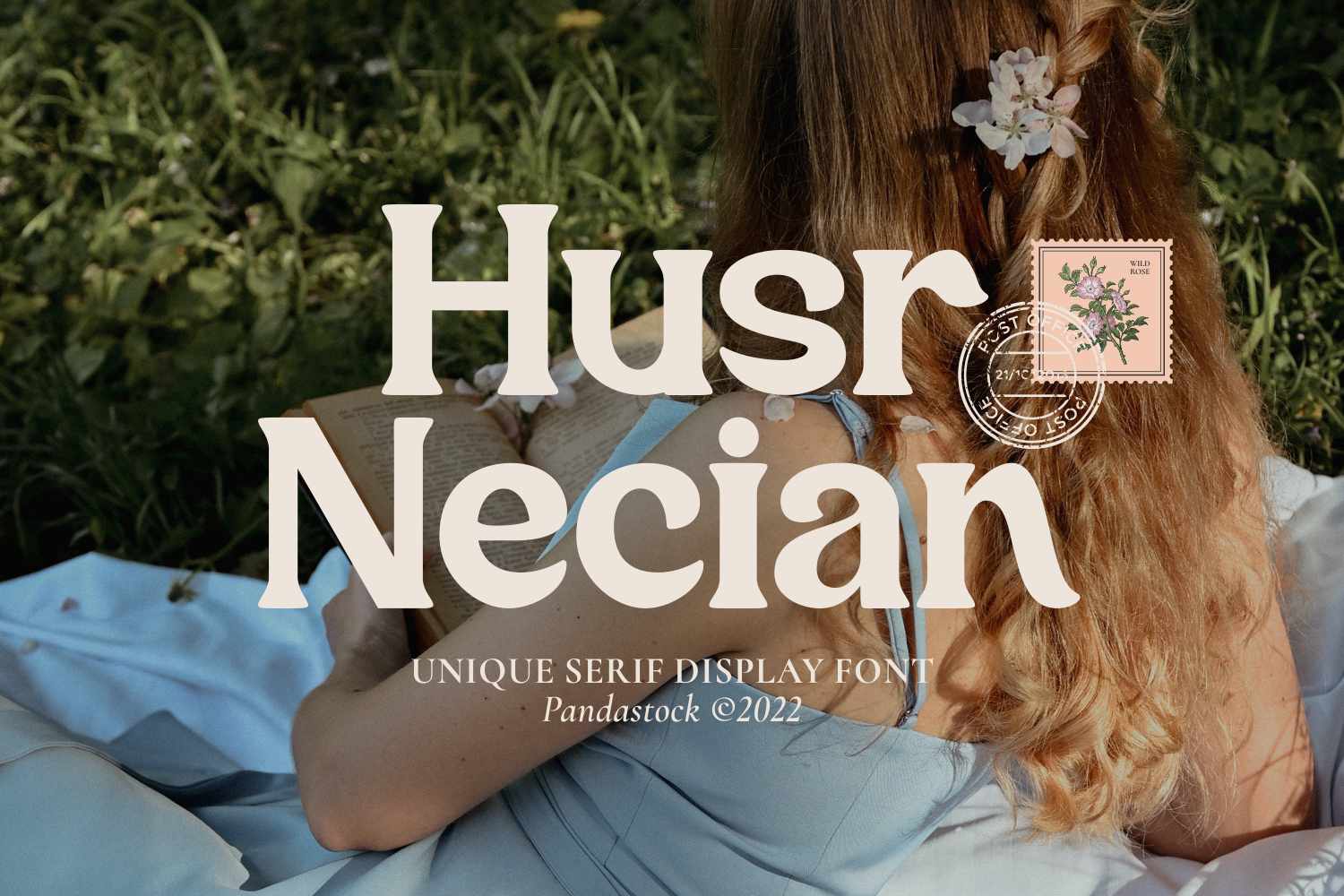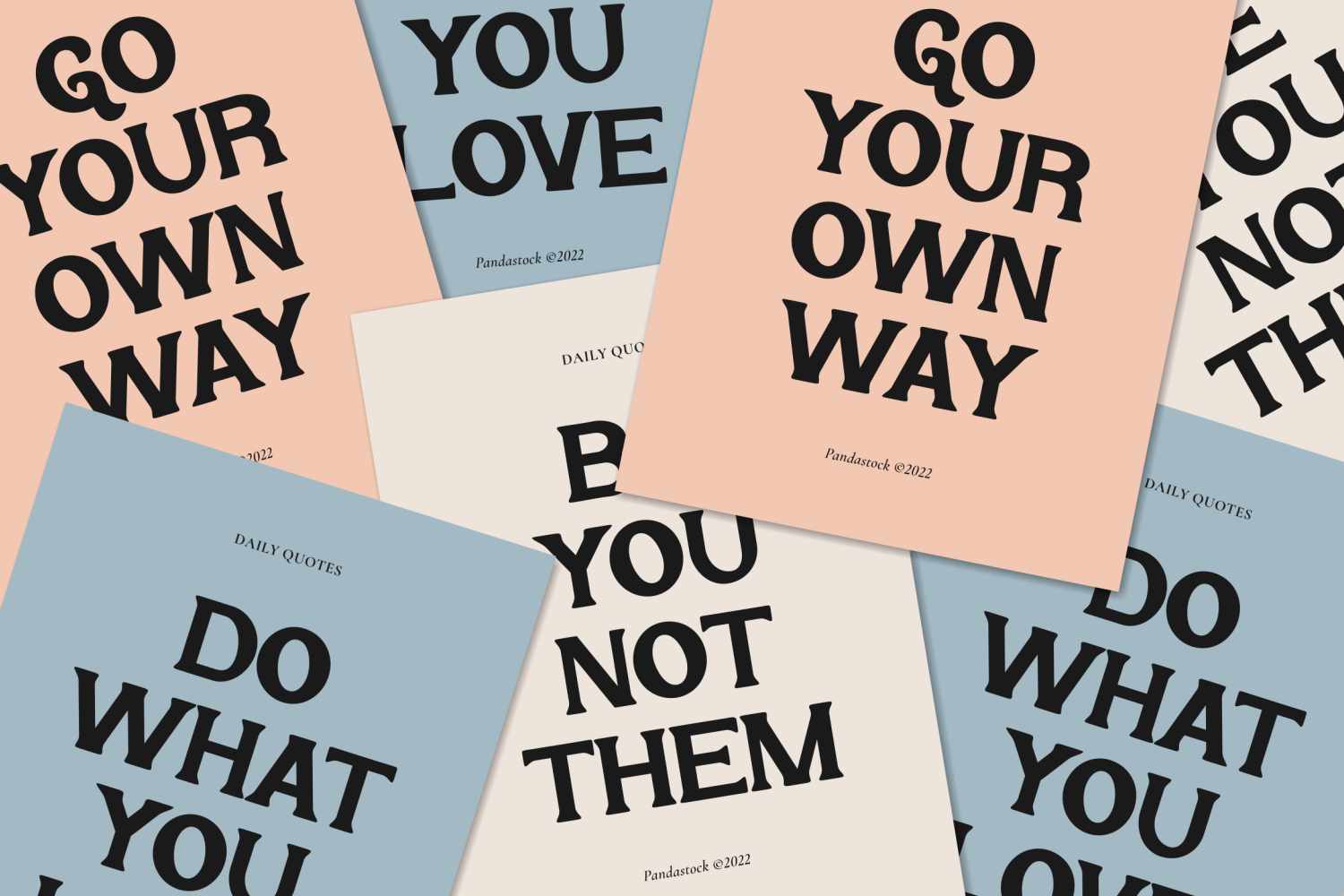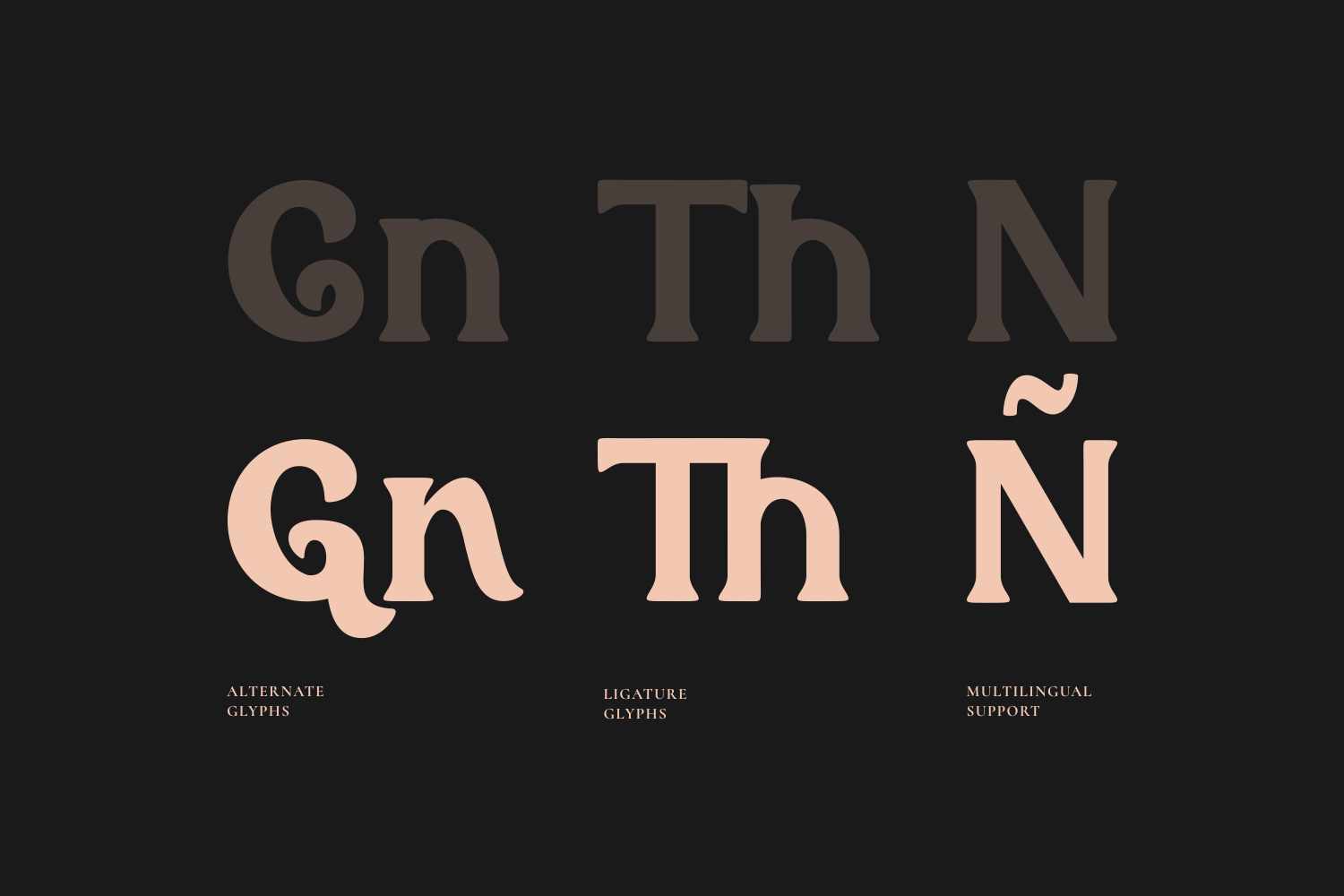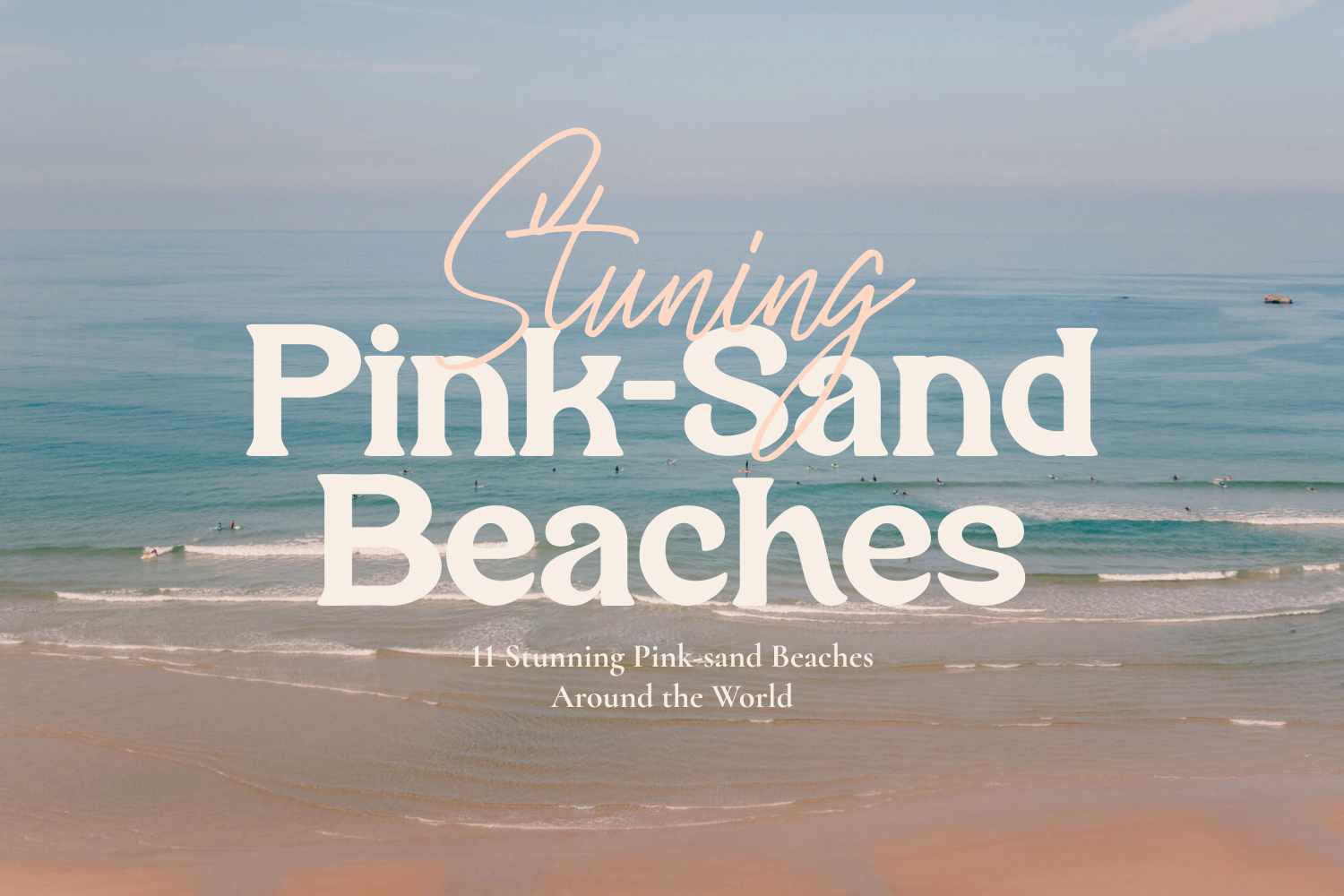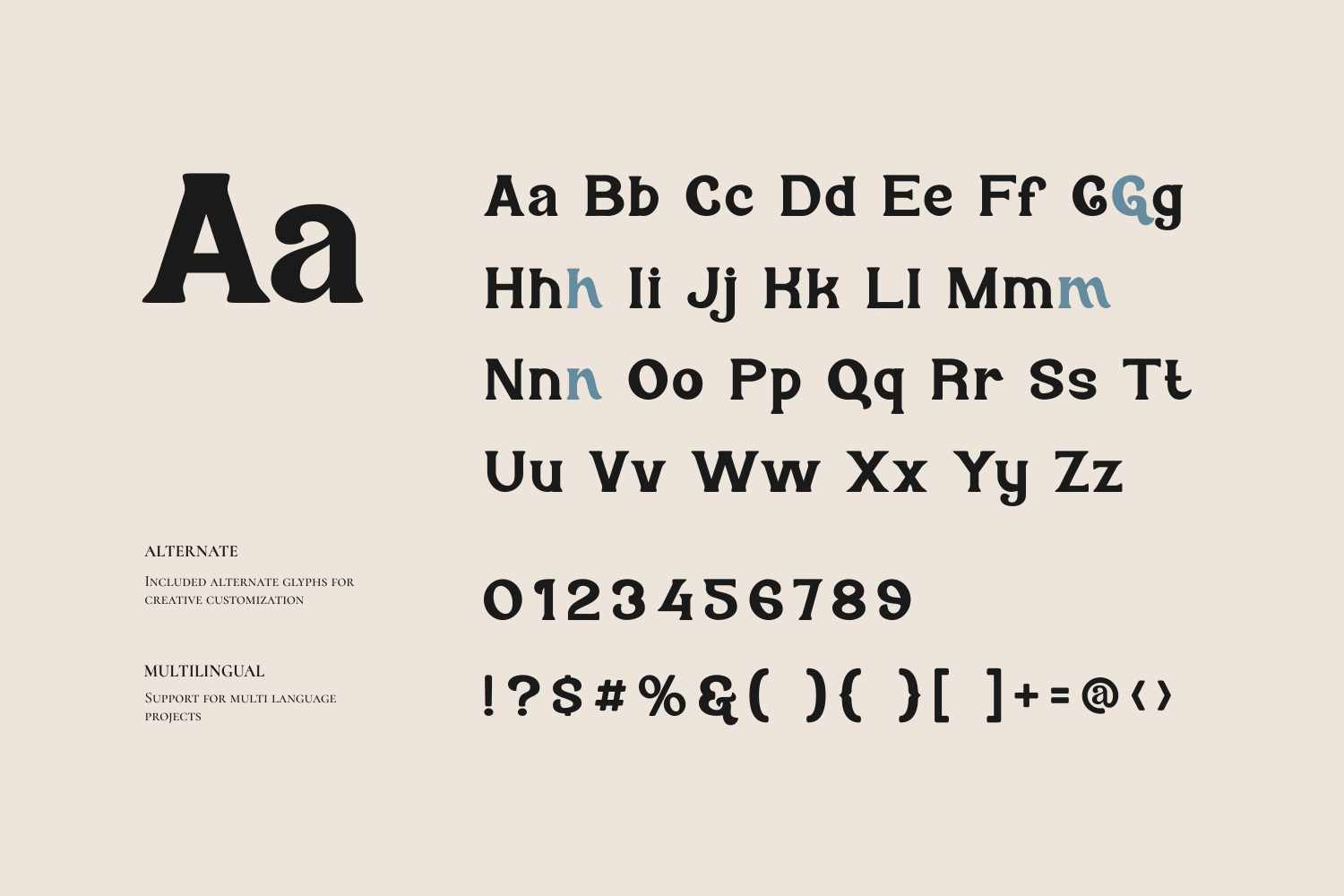
Husr Necian is a Unique Serif Display Font that combines modern elegance with a touch of classic charm. Its bold letterforms, soft curves, and refined serifs make it highly versatile for various creative projects. With stylistic alternates and ligatures included, Husr Necian allows designers to explore limitless customization options, perfect for crafting standout titles, branding, or editorial layouts.
This font captures a timeless yet contemporary aesthetic, making it suitable for fashion magazines, boutique branding, lifestyle products, posters, and social media graphics. With multilingual support and alternate glyphs, Husr Necian provides both beauty and functionality, ensuring your designs always look sophisticated, expressive, and memorable.
Husr Necian